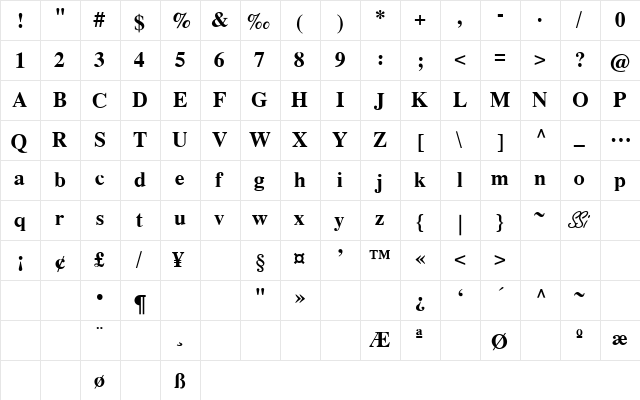
Greco Demi SSi Demi Bold
Design Context for Greco Demi SSi Typeface
Greco Demi SSi takes a measured approach to typography — its balanced proportions and neutral character make it a reliable workhorse for both digital and print work. Its bold stroke weight gives it real presence on the page.
Pro Tip: Use Greco Demi SSi in both headline and body roles to test its range before committing to a single application.